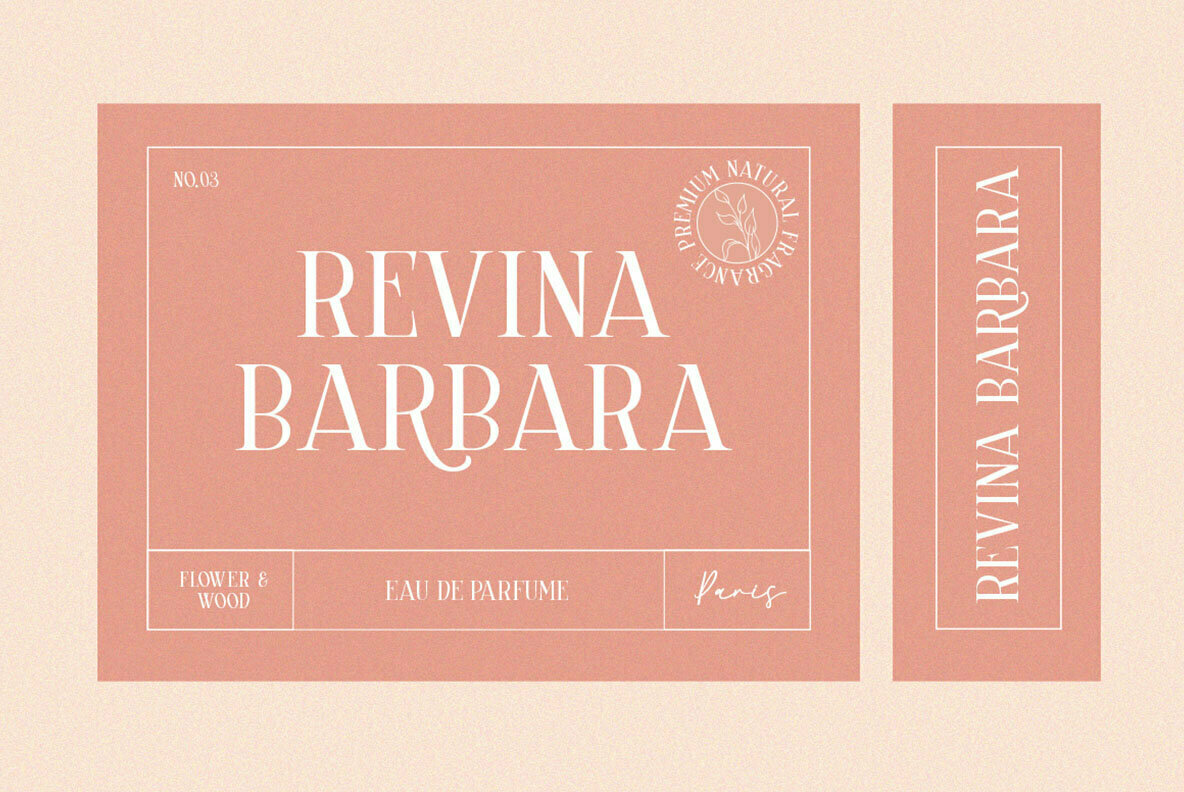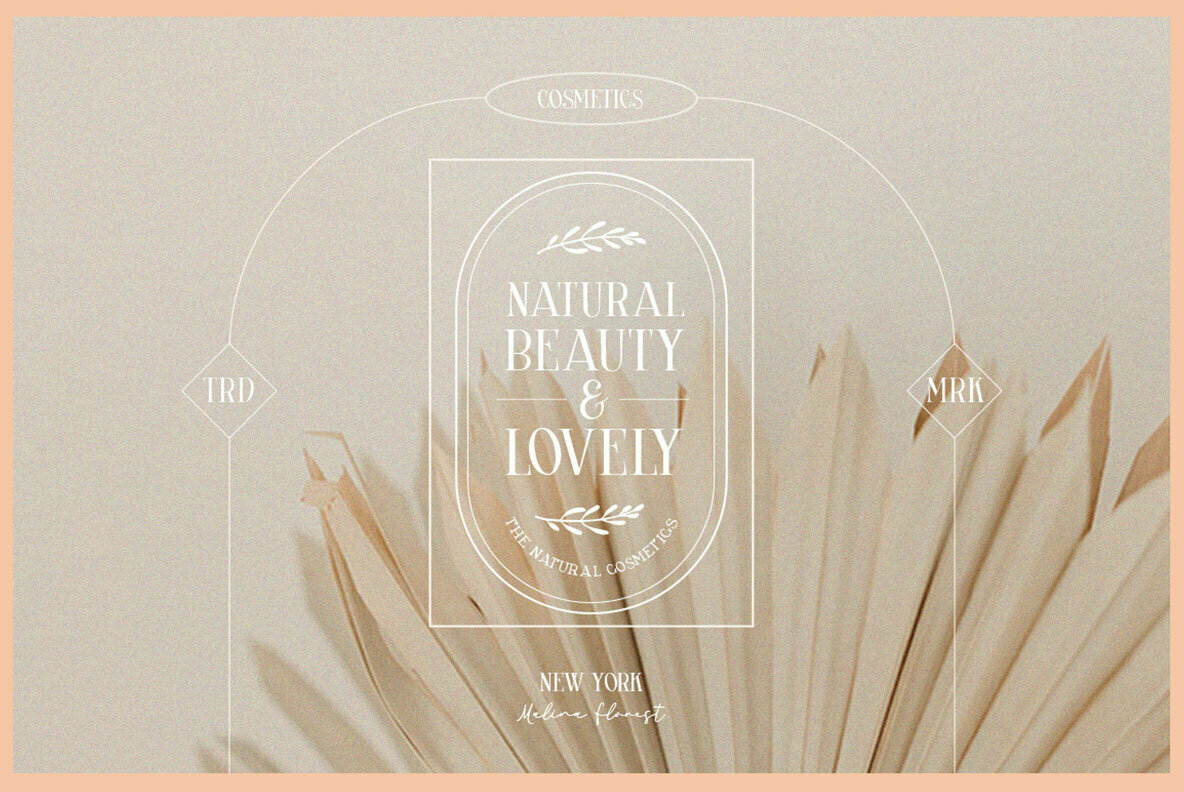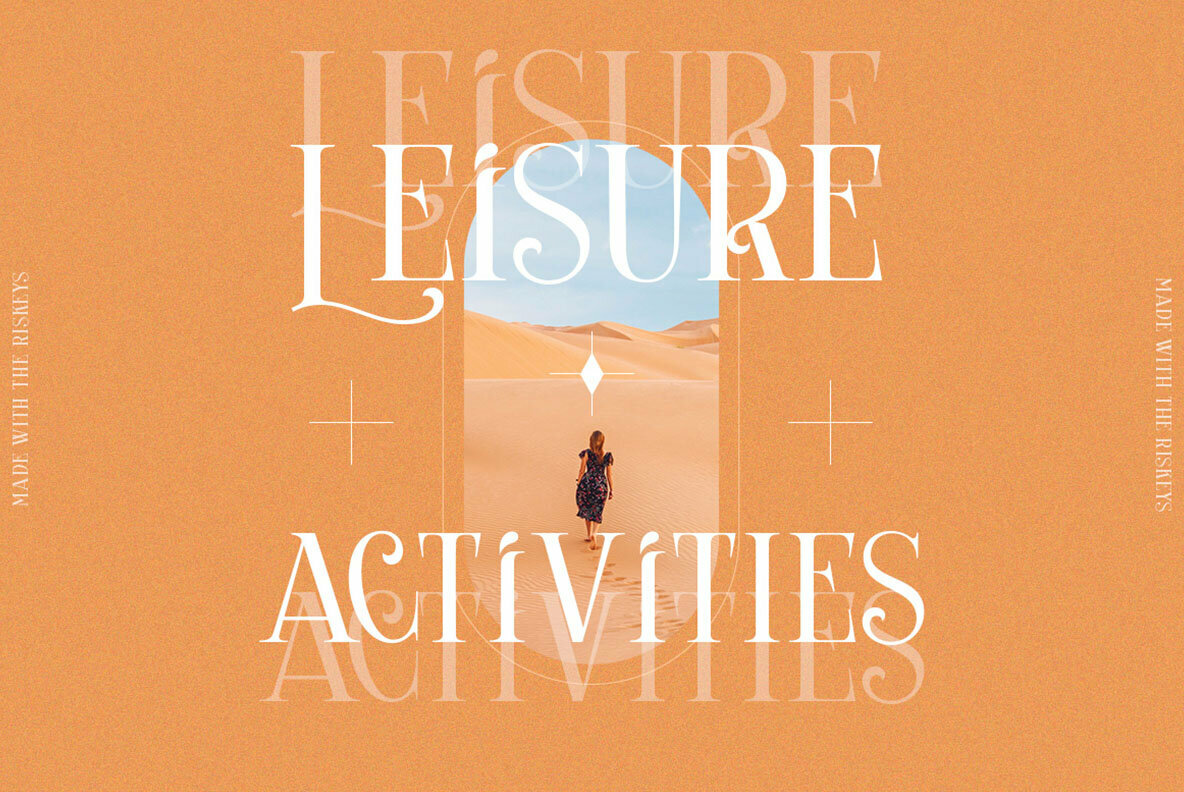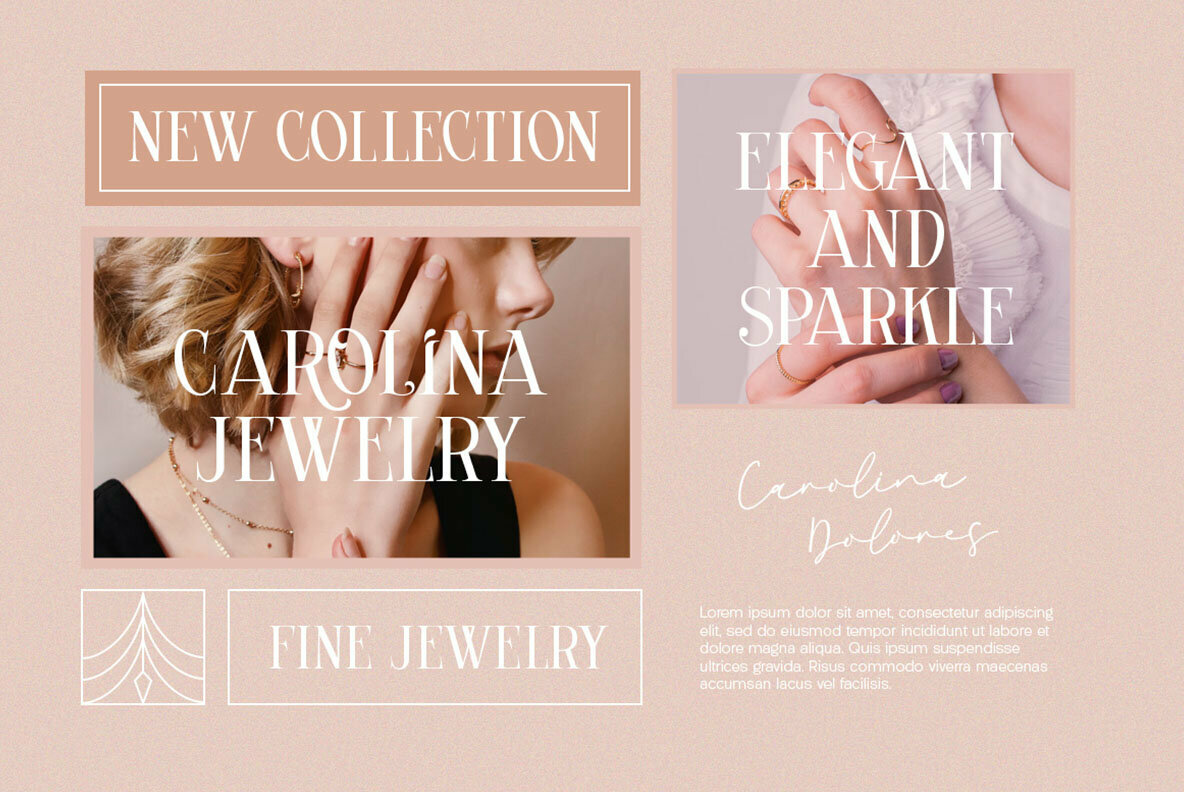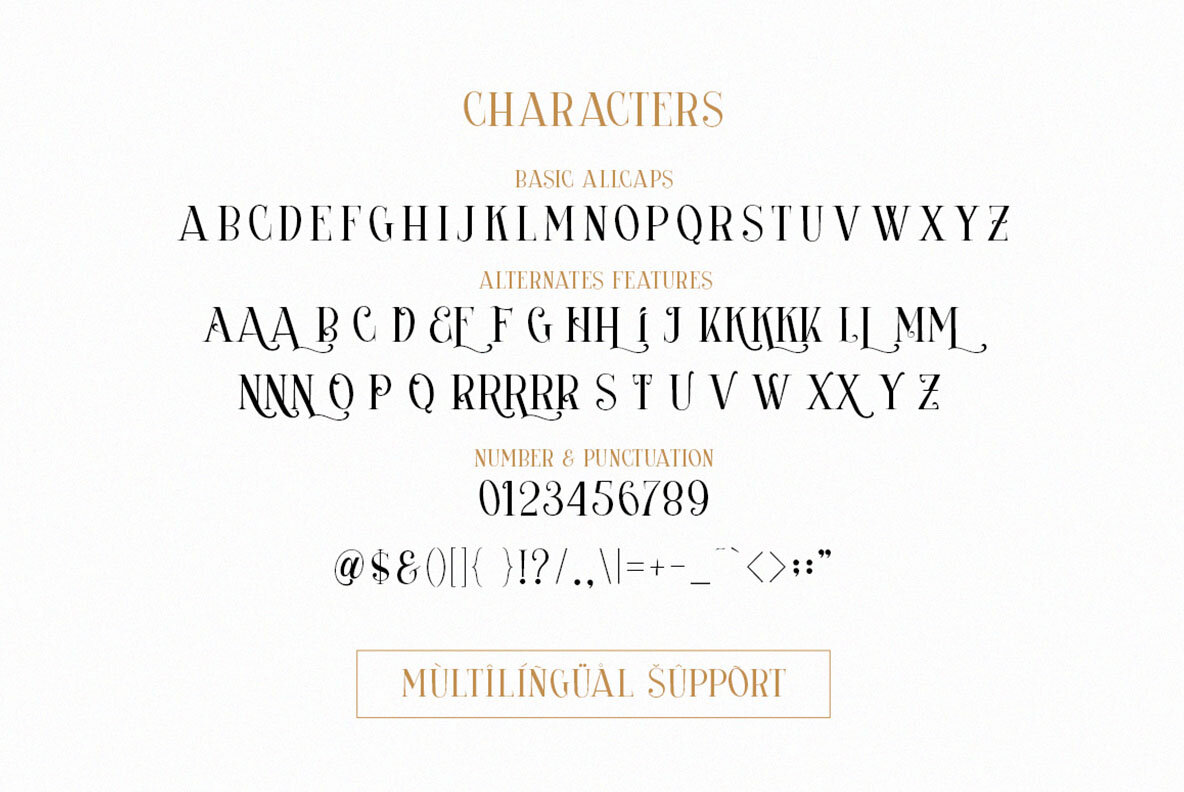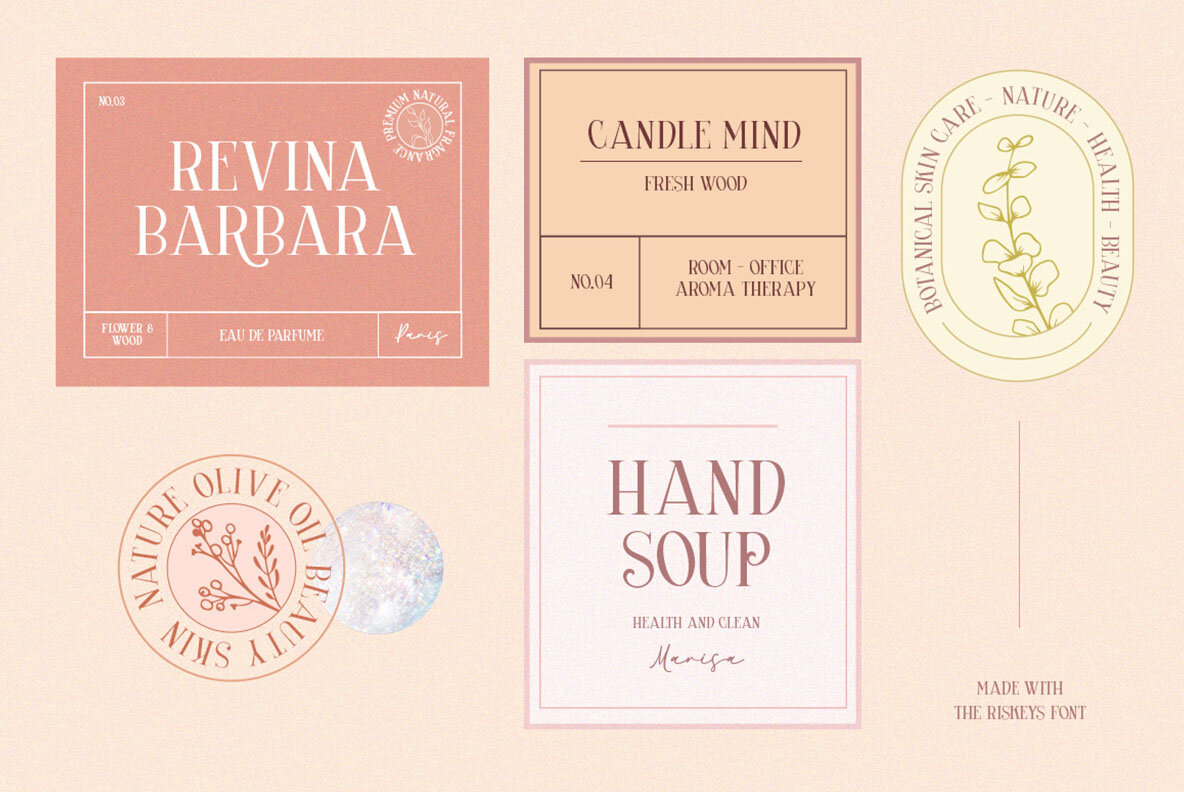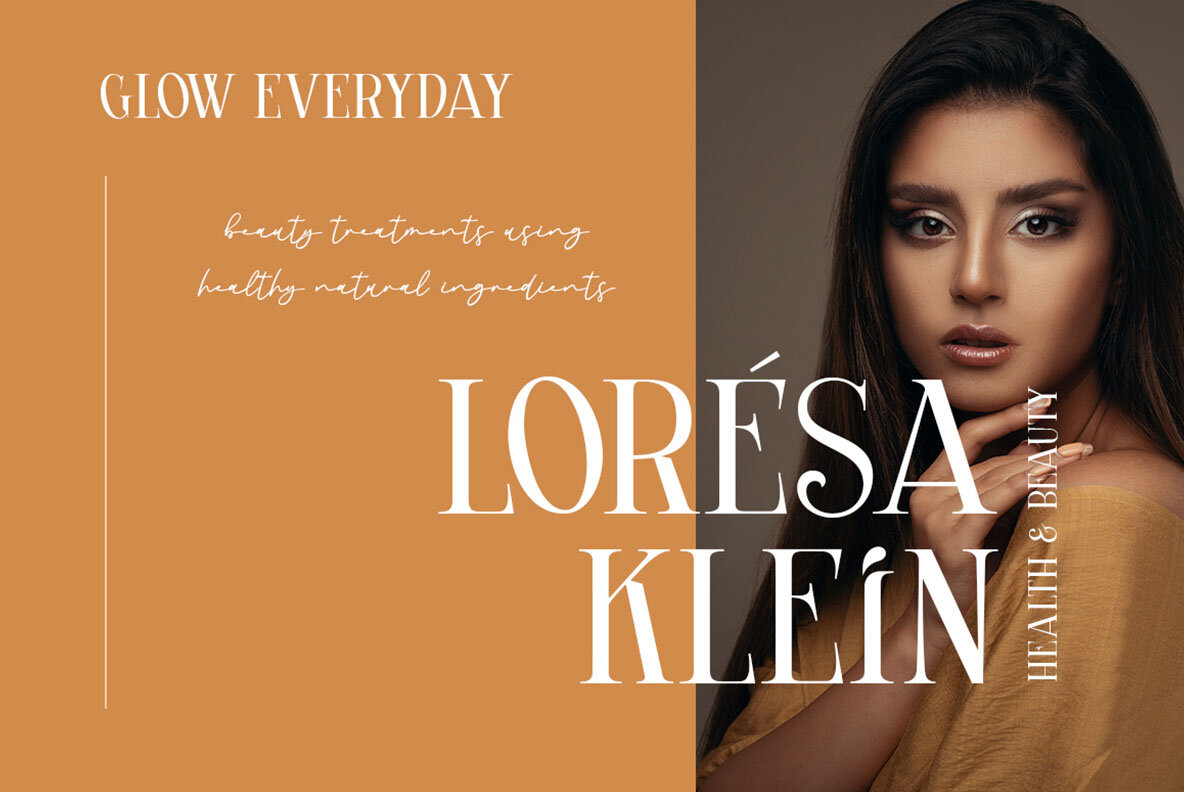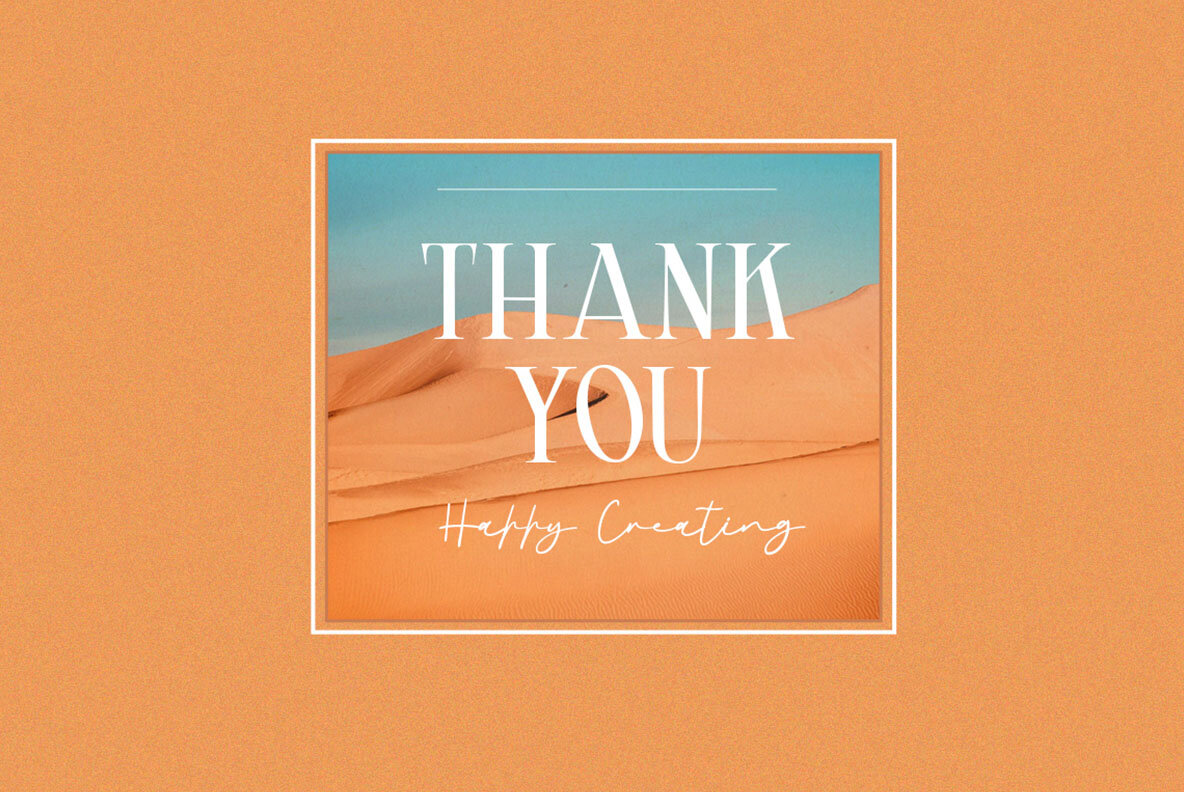
The Riskeys Font
The Riskeys Regular
The Riskeys provides a stylish blend of modernity and sophistication in a serif font that caters to both contemporary and vintage aesthetics. This adaptable typeface is perfect for logos, headlines, and various formal applications—think invitations, magazines, and even packaging. Its design enriches creative projects with its unique ligatures and alternates, appealing to a wide spectrum of artistic endeavors. For the full capabilities of The Riskeys, we recommend using applications that support OpenType features, like Adobe's suite and Corel Draw, to explore its rich glyph variations. Perfect for enhancing your design toolkit, this serif typeface complements both modern and traditional projects.The Riskeys: Modern Elegance in Serif Typography